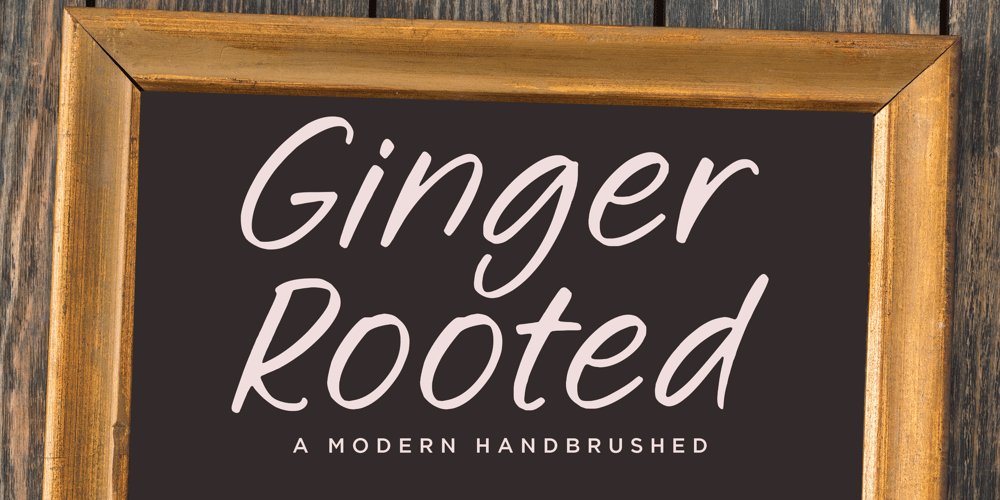
Ginger Rooted
Ginger Rooted font
Ginger Rooted Font Family was designed by Restu Angga and published by Balpirick. Ginger Rooted contains 1 styles and family package options. Ginger Rooted is a Modern Handbrushed Font.Whether you’re using it for crafts, digital design, presentations, or making greeting cards, this font has the potential to become your favorite go-to font, no matter the occasion! – also multilingual supportEnjoy the font! Feel free to comment or feedback!Thank you!